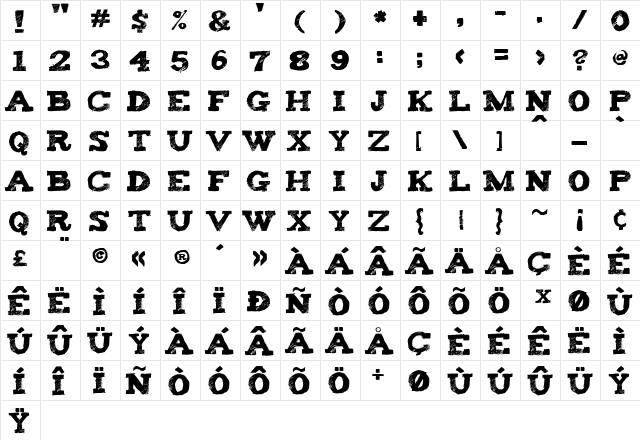
Tiza Regular
| Foundry | Pablo Caro |
| Designer | Pablo Caro |
Design Context for Tiza Typeface
Tiza is a composed and adaptable typeface that performs quietly and consistently across a wide range of design contexts.